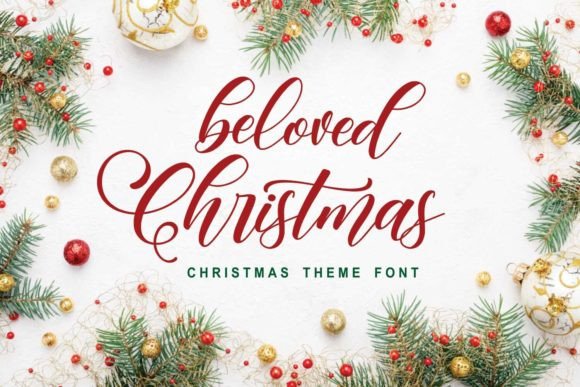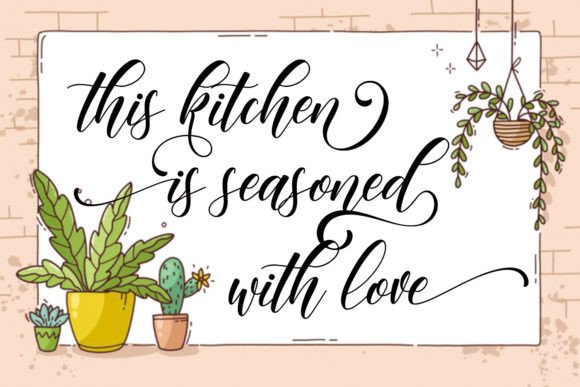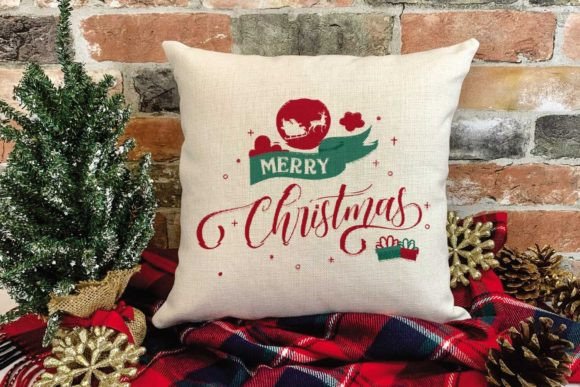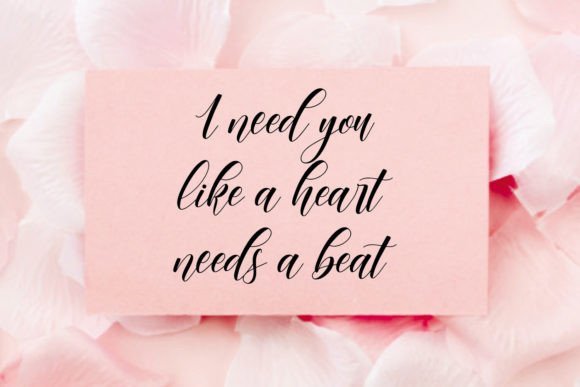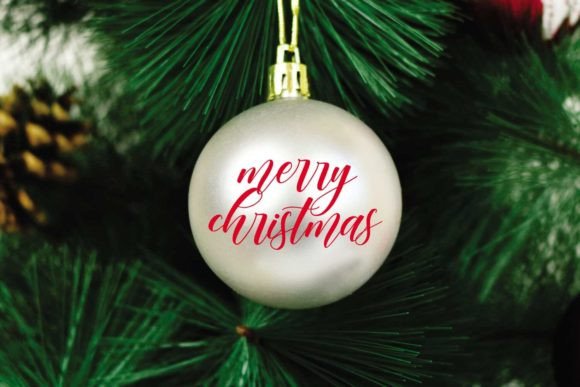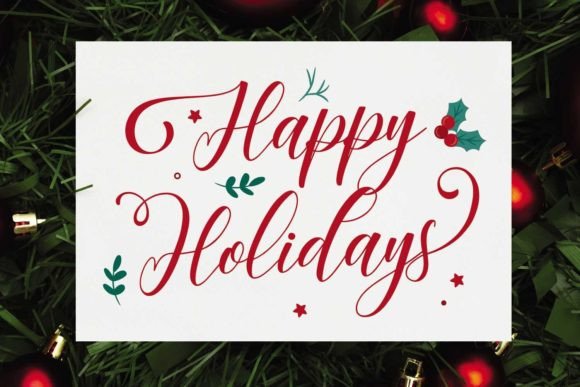
Introducing Beloved Christmas: The Ultimate Elegant Script Font for Your Holiday Designs
Are you looking for a font that exudes elegance and sophistication for your holiday designs? Look no further than Beloved Christmas, a stylish and incredibly elegant script font that is sure to make your designs shine. Whether you’re creating wedding invitations, thank you cards, quotes, greeting cards, logos, business cards, or any other design that needs a handwritten touch, Beloved Christmas is the perfect choice.
What Makes Beloved Christmas So Special?
Beloved Christmas is a unique and beautiful script font that is designed to add a touch of elegance and sophistication to any design. Its flowing lines and delicate curves make it perfect for creating stunning holiday designs that will leave a lasting impression. The font is incredibly versatile and can be used for a wide range of design projects, from wedding invitations and greeting cards to logos and business cards.
Key Features of Beloved Christmas
- Elegant Script Font: Beloved Christmas is a stylish and elegant script font that is perfect for creating sophisticated holiday designs.
- Versatile: The font can be used for a wide range of design projects, from wedding invitations and greeting cards to logos and business cards.
- Unique and Beautiful: Beloved Christmas is a unique and beautiful font that will add a touch of elegance and sophistication to any design.
Ideas for Using Beloved Christmas
Beloved Christmas is a versatile font that can be used for a wide range of holiday design projects. Here are a few ideas to get you started:
- Wedding Invitations: Use Beloved Christmas to create stunning wedding invitations that will set the tone for the big day.
- Thank You Cards: Add a touch of elegance to your thank you cards with Beloved Christmas.
- Quotes and Greeting Cards: Use the font to create beautiful quotes and greeting cards that will impress your friends and family.
- Logos and Business Cards: Use Beloved Christmas to create unique and elegant logos and business cards that will help you stand out from the competition.
- Experiment with Different Sizes and Colors: Don’t be afraid to experiment with different sizes and colors to find the perfect look for your design.
- Pair with Other Fonts: Beloved Christmas pairs well with other fonts, so don’t be afraid to try pairing it with a sans-serif font for added contrast.
- Use on Different Backgrounds: The font looks great on a variety of backgrounds, so don’t be afraid to try using it on different textures and colors.
Beloved Christmas is a beautiful and elegant script font that is perfect for creating stunning holiday designs. Its versatility and ease of use make it a must-have font for designers and crafters who want to create unique and elegant designs. Whether you’re creating wedding invitations, thank you cards, quotes, greeting cards, logos, business cards, or any other design that needs a handwritten touch, Beloved Christmas is the perfect choice.